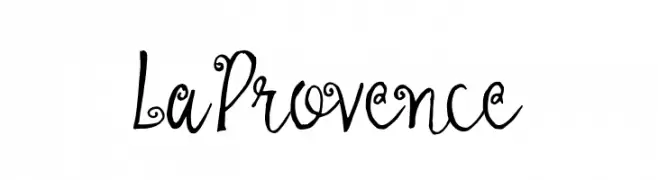
A playful, bold font with rounded, thick strokes and a whimsical style.
A playful, whimsical font with curly, hand-drawn elements.
A bold, stitched-together font with a spooky, playful vibe.
A bold, playful font with chunky, cartoonish letterforms.
A bold, distressed font with a playful and rugged appearance.
A playful, bold, hand-drawn font with irregular strokes.
A bold, decorative font with whimsical, curly elements and a handcrafted feel.
A bold, geometric font with angular lines and circular dots, offering a modern and artistic style.
A geometric, angular font with hexagonal shapes and consistent line thickness.